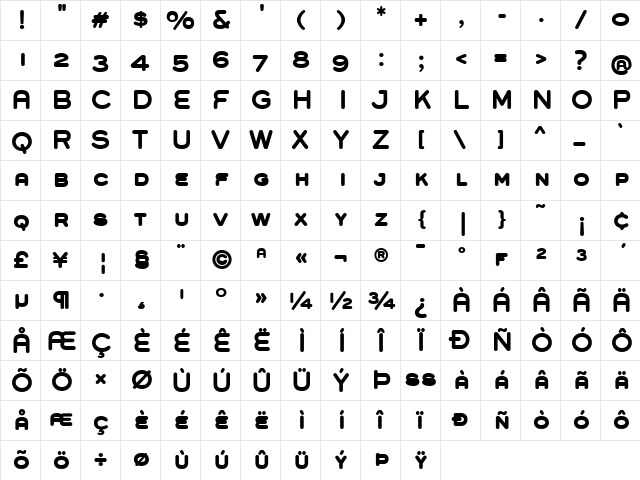
Grover Caps Bold
Design Context for Grover Caps Typeface
Grover Caps is a composed and adaptable typeface that performs quietly and consistently across a wide range of design contexts. The heavy weight commands attention and anchors typographic hierarchies.